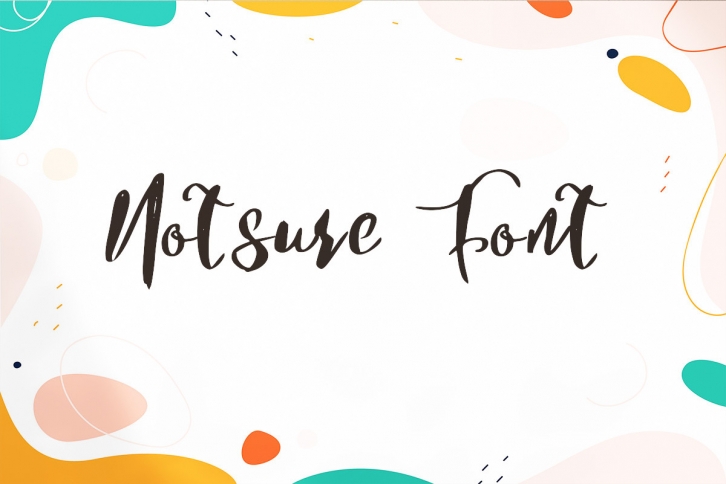
Notsure is a delicate and trendy looking script font. Whether you’re using it for crafting, digital designing, presentations or greeting cards making, it’s perfect!Â